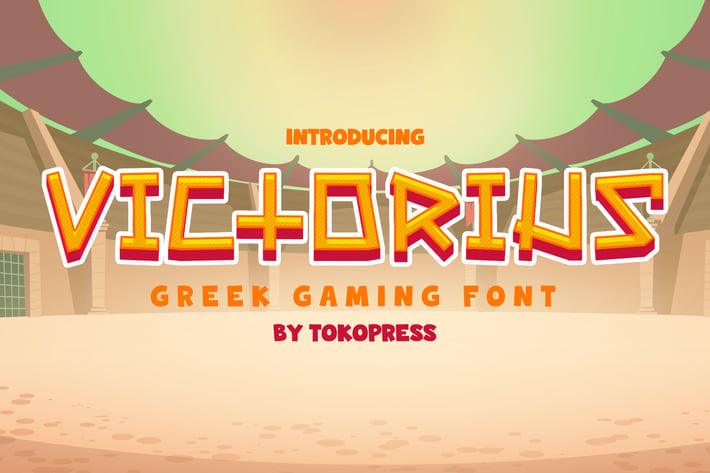
Victorius - Gaming font
VICTORIUS – Ancient Strength Meets Modern Design
Victorius is a bold, heroic display typeface inspired by ancient Greek warfare, perfect for delivering dramatic visual storytelling with every word. Its sharp terminals, angular strokes, and structured uppercase forms evoke the discipline and glory of Spartan warriors. With a rugged texture and geometric balance, this font brings a timeless battlefield aesthetic to the modern digital arena—ideal for game titles, posters, and branding that calls for strength and impact.
Key Features :
Strong angular forms for maximum readability and dominance
Heroic uppercase structure with commanding visual weight
Perfect for historical, battle, and mythology-themed branding
Adds cinematic drama to posters, game titles, and covers
- Basic latin A-Z and a-z
- Numbers